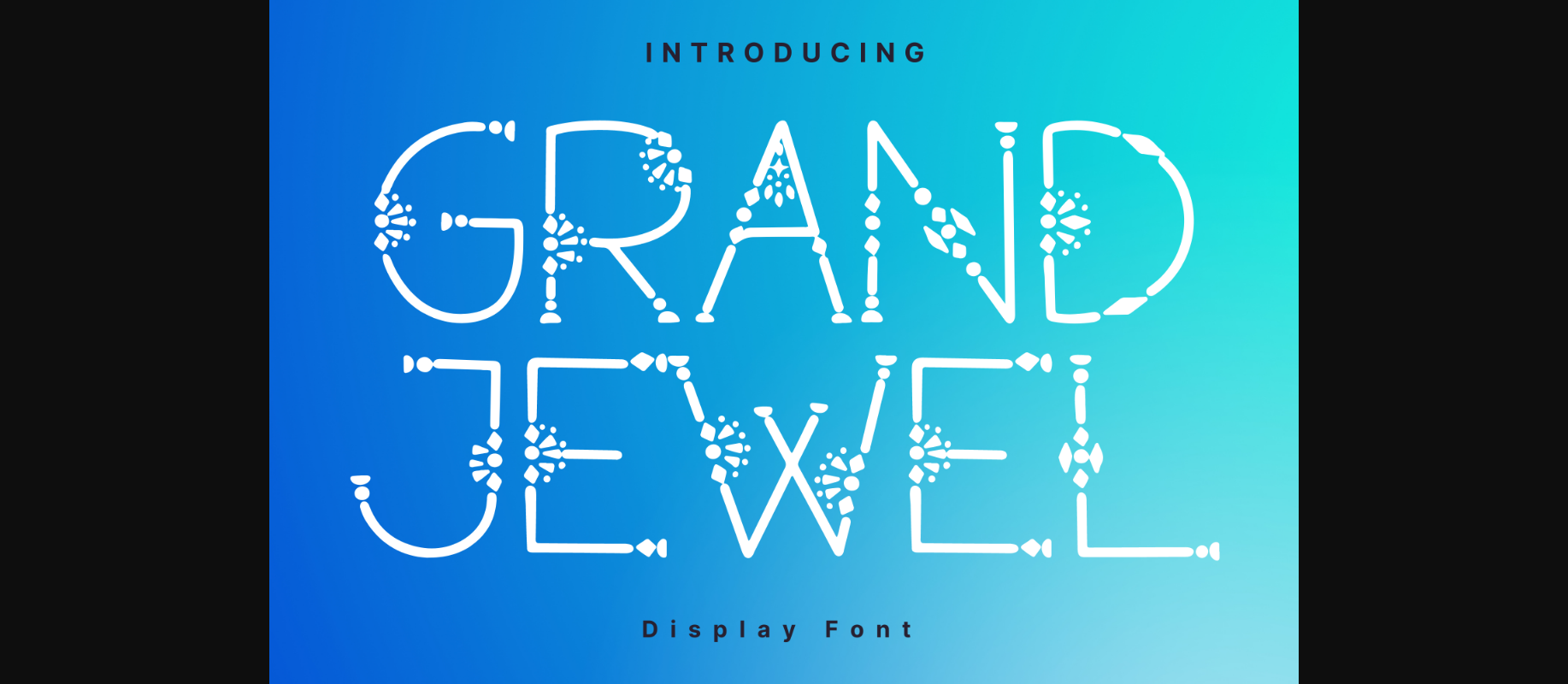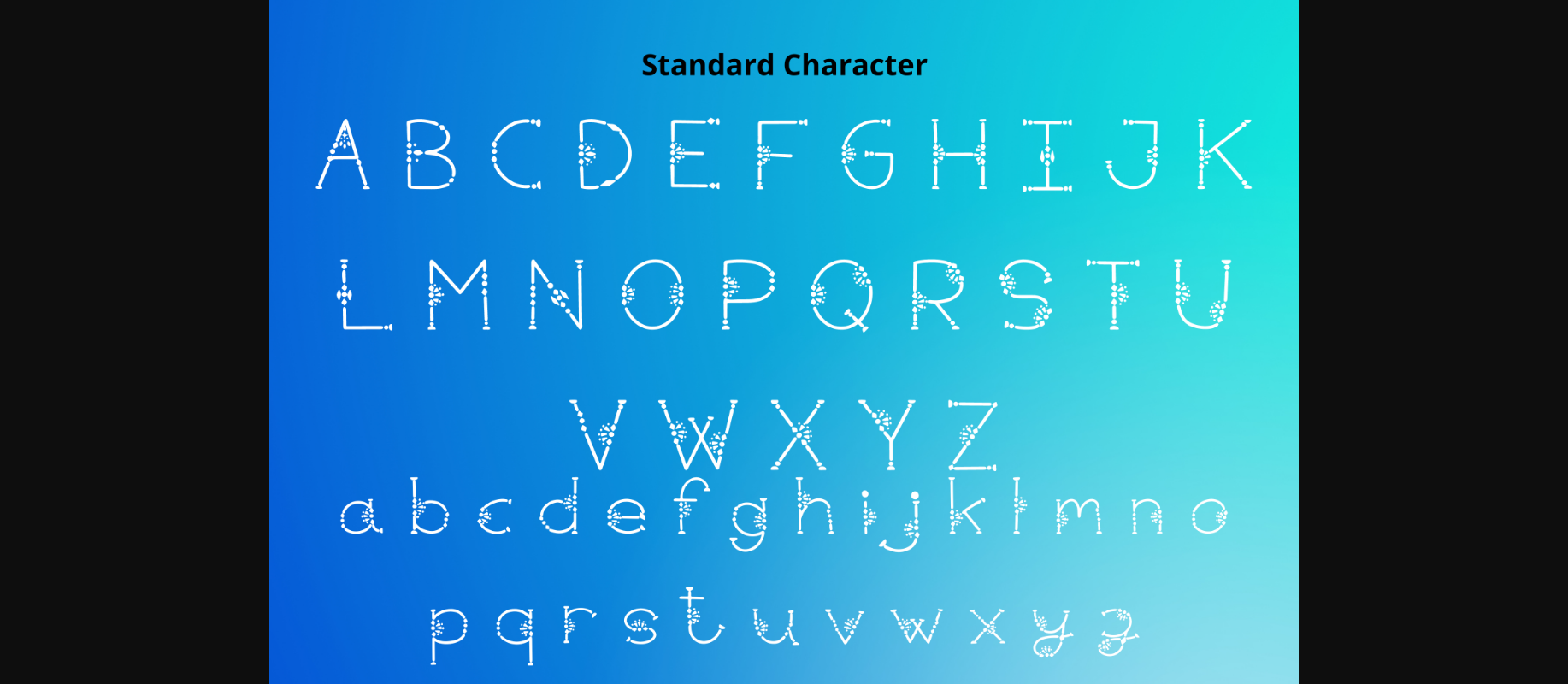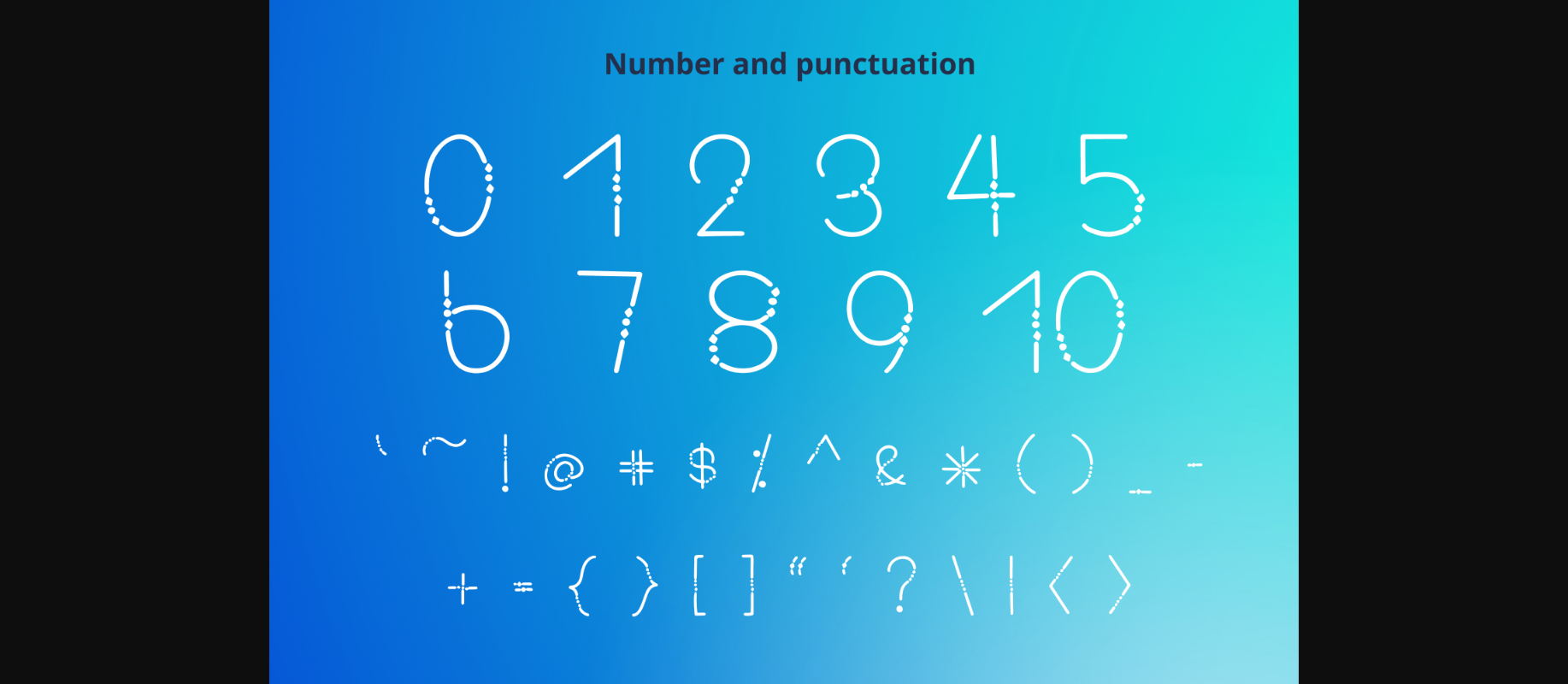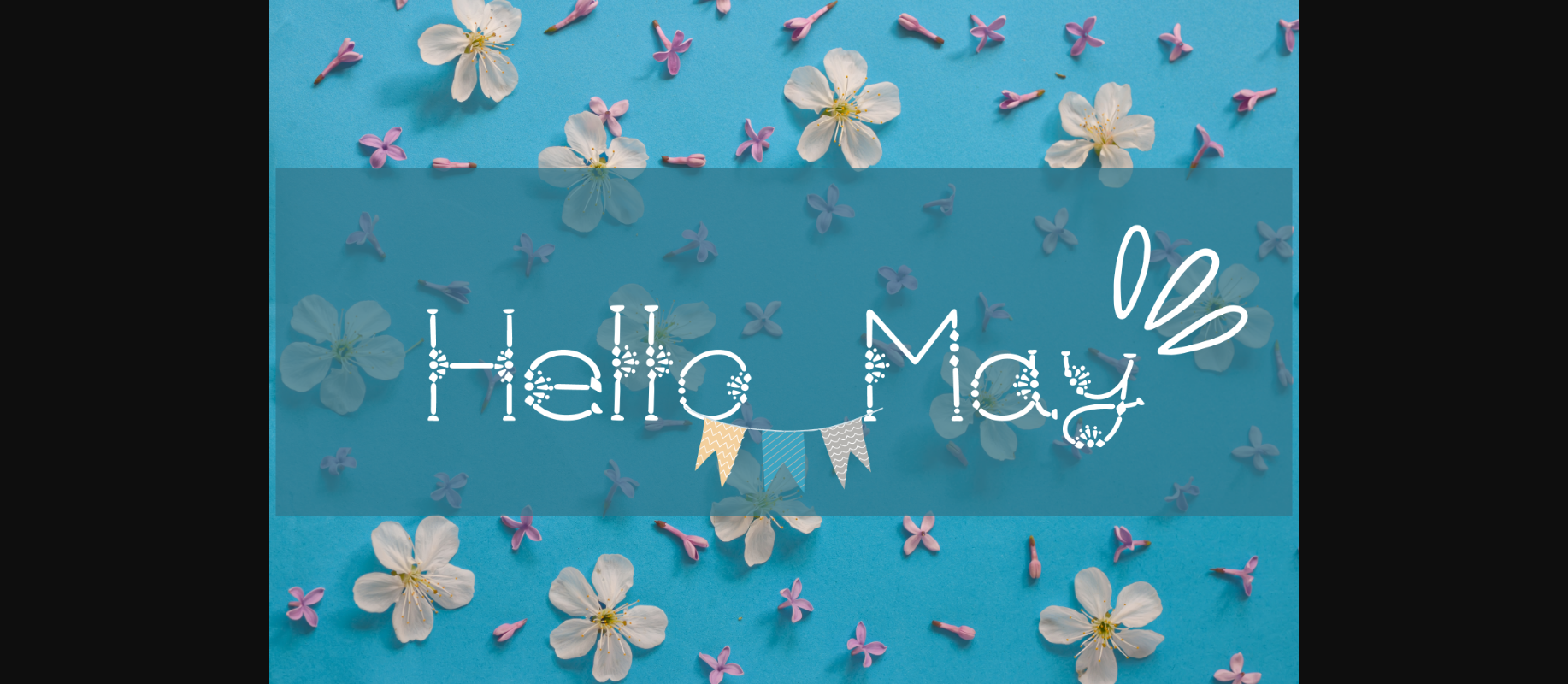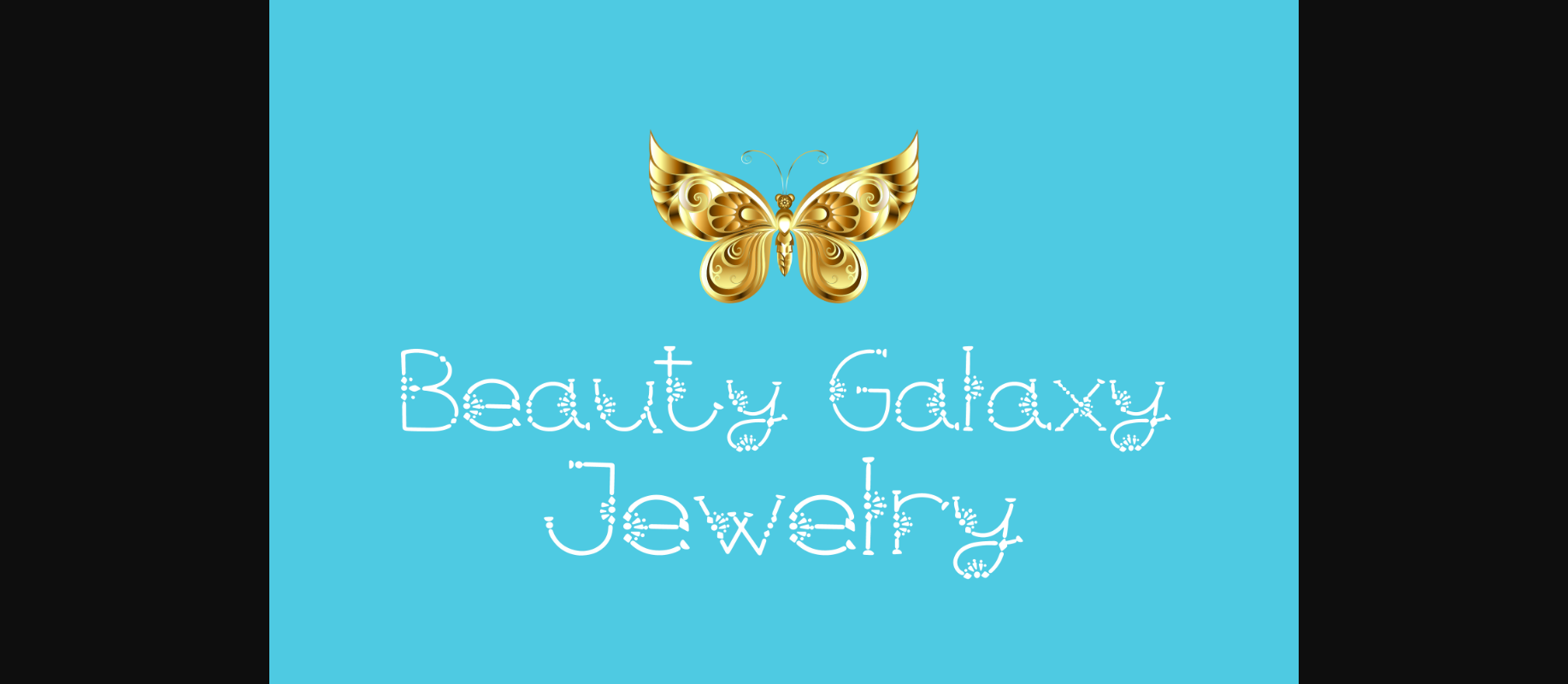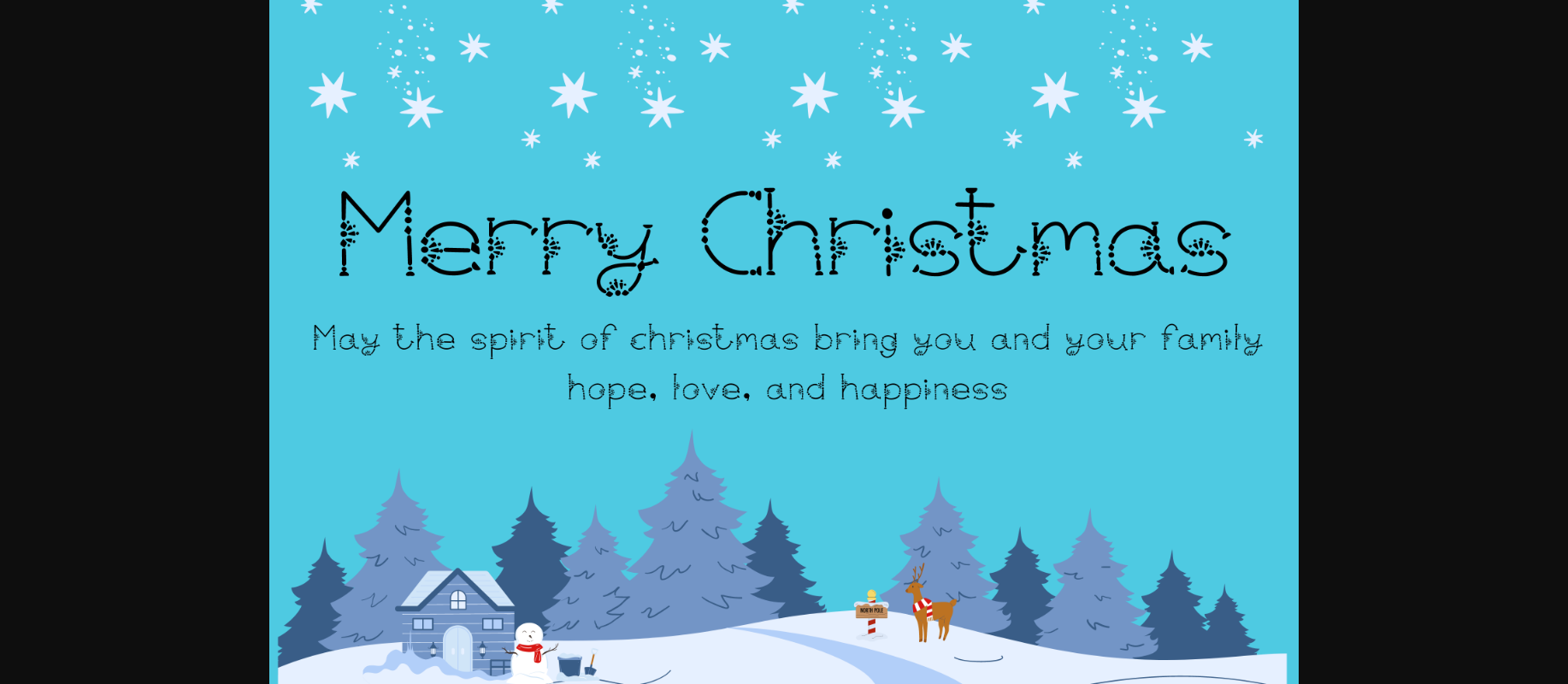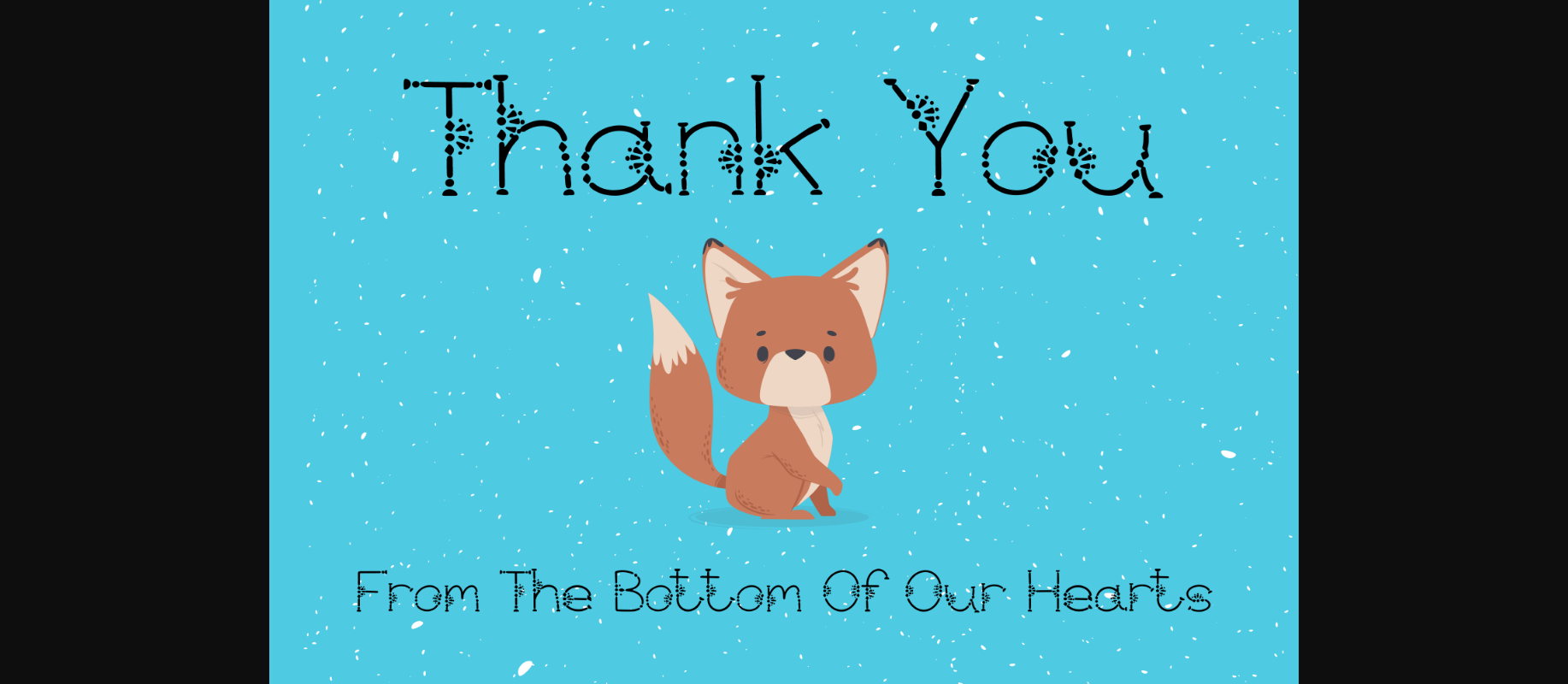
Grand Jewel Font
About Grand Jewel Font
Grand Jewel is a whimsical and cute decorative font. It can easily be matched to an incredibly large set of projects, so add it to your creative ideas and notice how it makes them stand out!